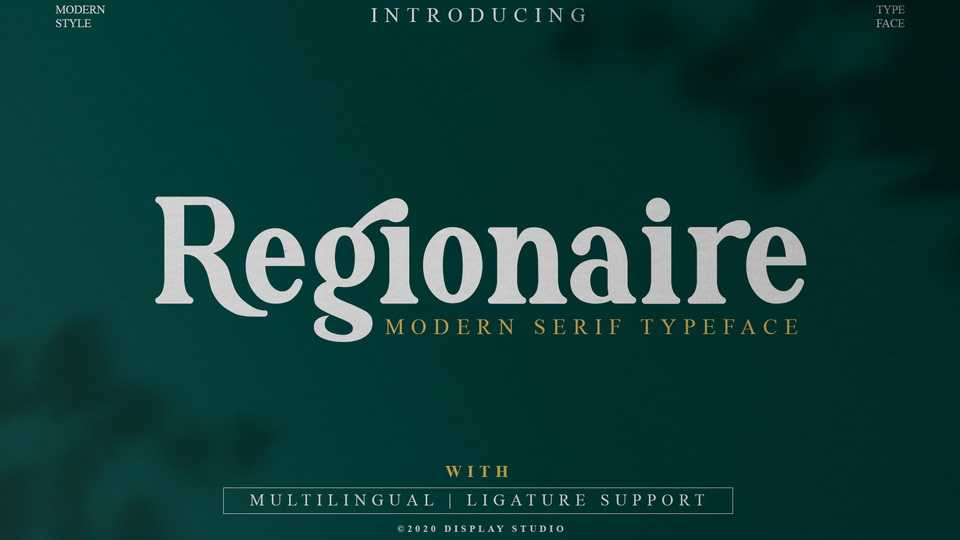
Download Regionaire font, a modern serif typeface that would further enhance the aesthetical aspect of your work. Regionaire is perfect for brand logos, invitations, greeting cards, or even any kind of project.
Designer: Display Studio